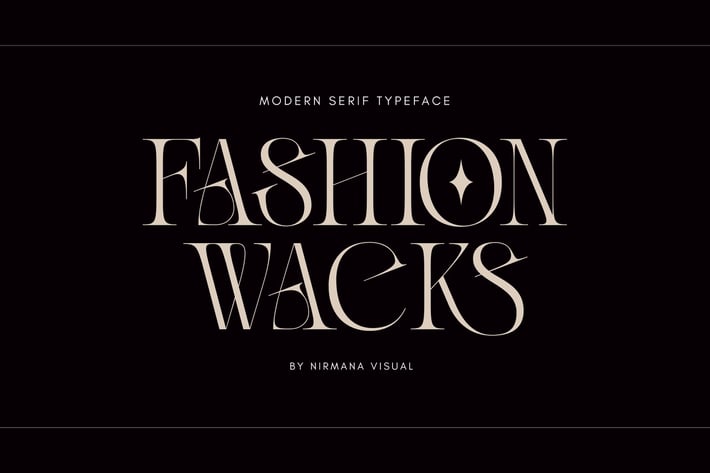
Fashion Wacks - Logo font
Fashion Wacks , contemporary of serif font, inspired by Fashion Magazine Cover.
Fashion Wacks offers beautiful typographic harmony for a diversity of design projects, including logos & branding, social media posts, advertisements & product designs.